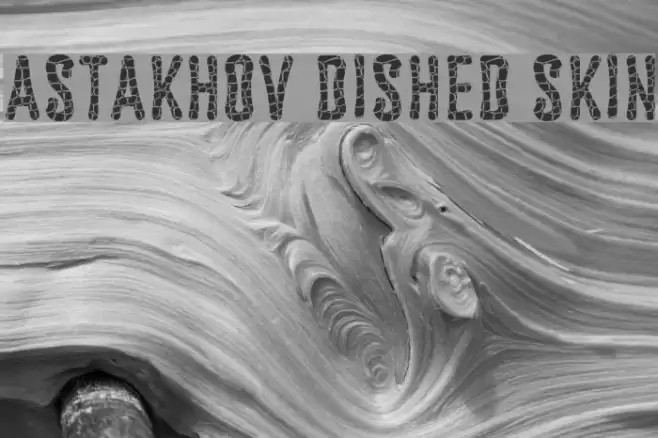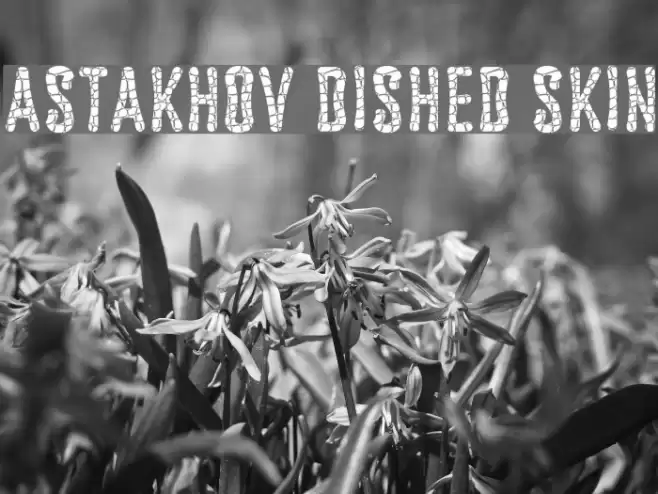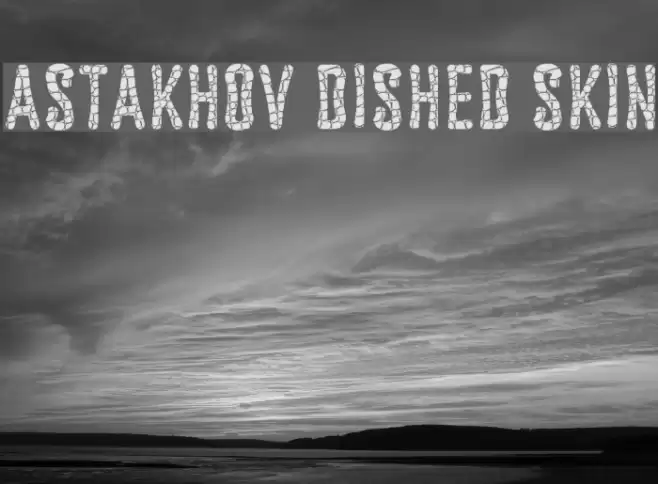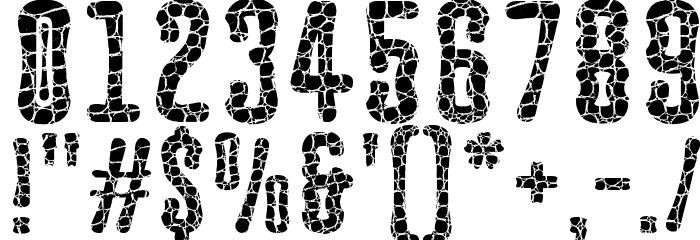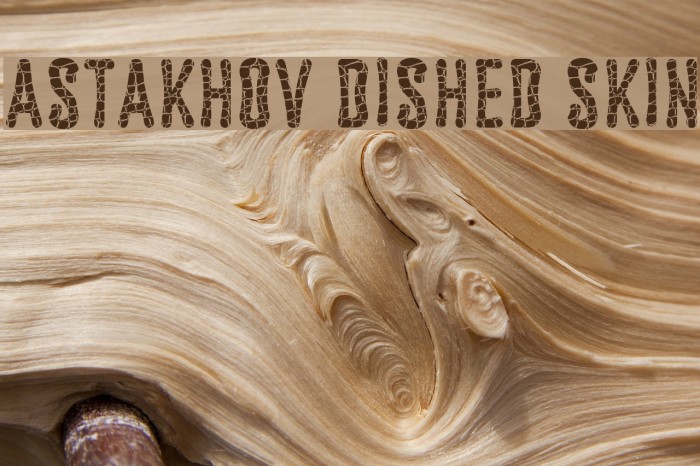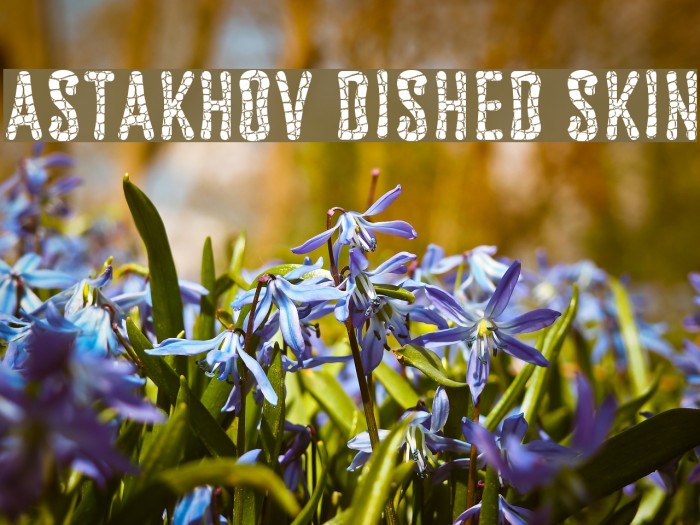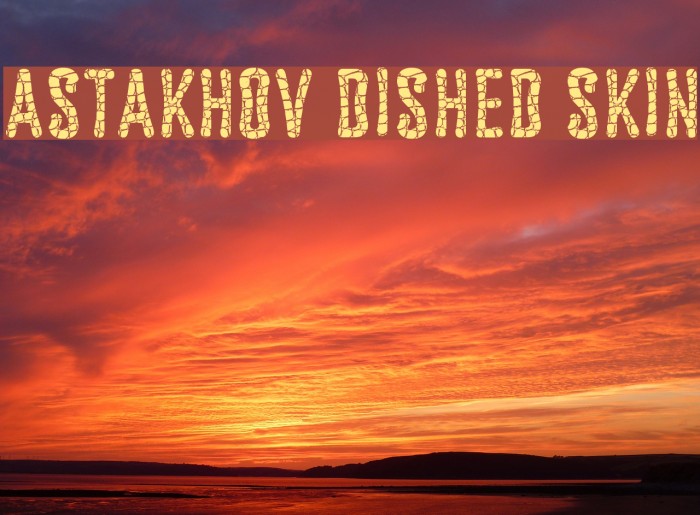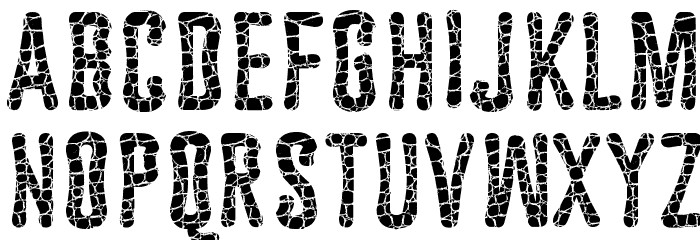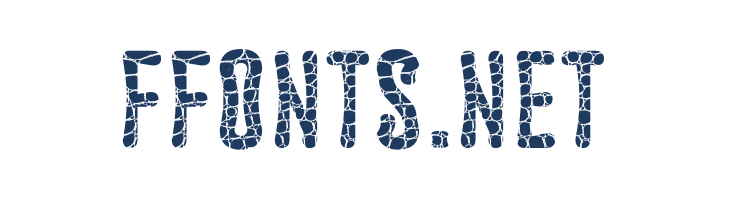
Astakhov Dished Skin Font
Astakhov Dished Skin Description
This font features a unique, textured design that resembles a cracked or dished surface, giving it a distinctive and eye-catching appearance. The uppercase and lowercase letters maintain a consistent style with bold, thick strokes that are interrupted by irregular, organic patterns. The numerals and special characters follow the same design, ensuring a cohesive look across all glyphs. This font's bold and decorative nature makes it ideal for projects that require a strong visual impact.
A bold, textured font with a cracked, organic design from Uncategorized fonts.
- Proposed Projects: Ideal for posters, album covers, branding, and any project needing a bold, artistic touch.